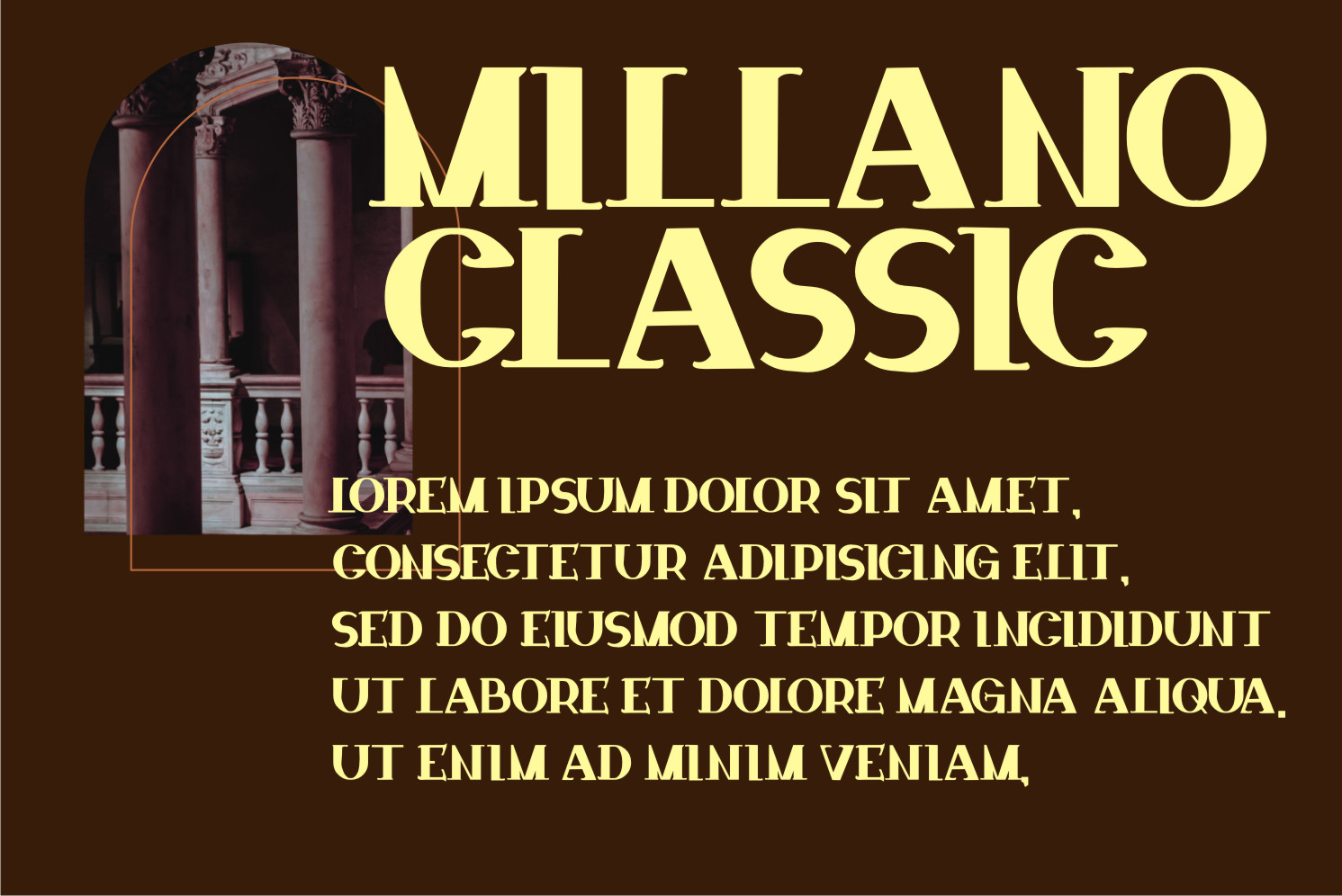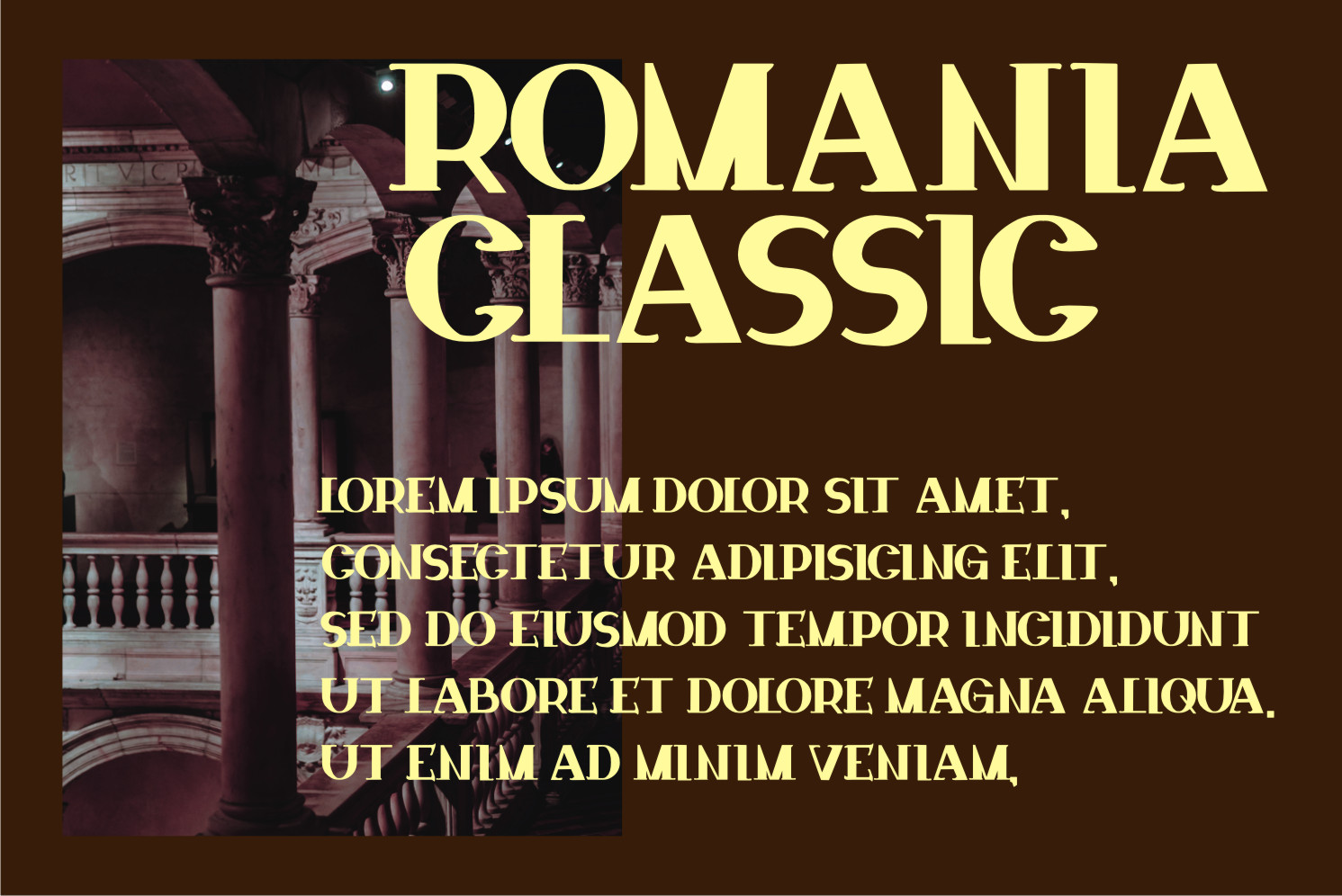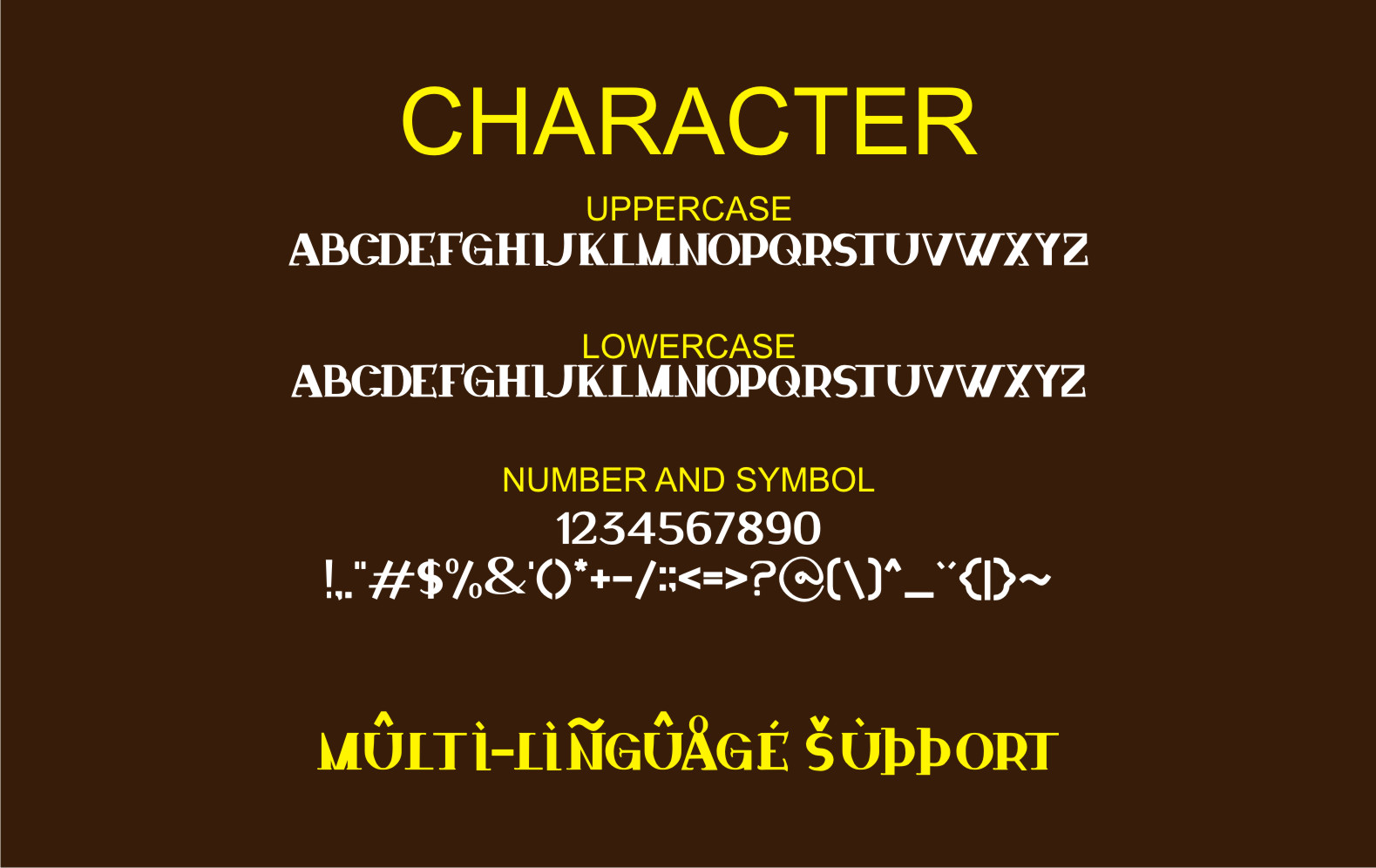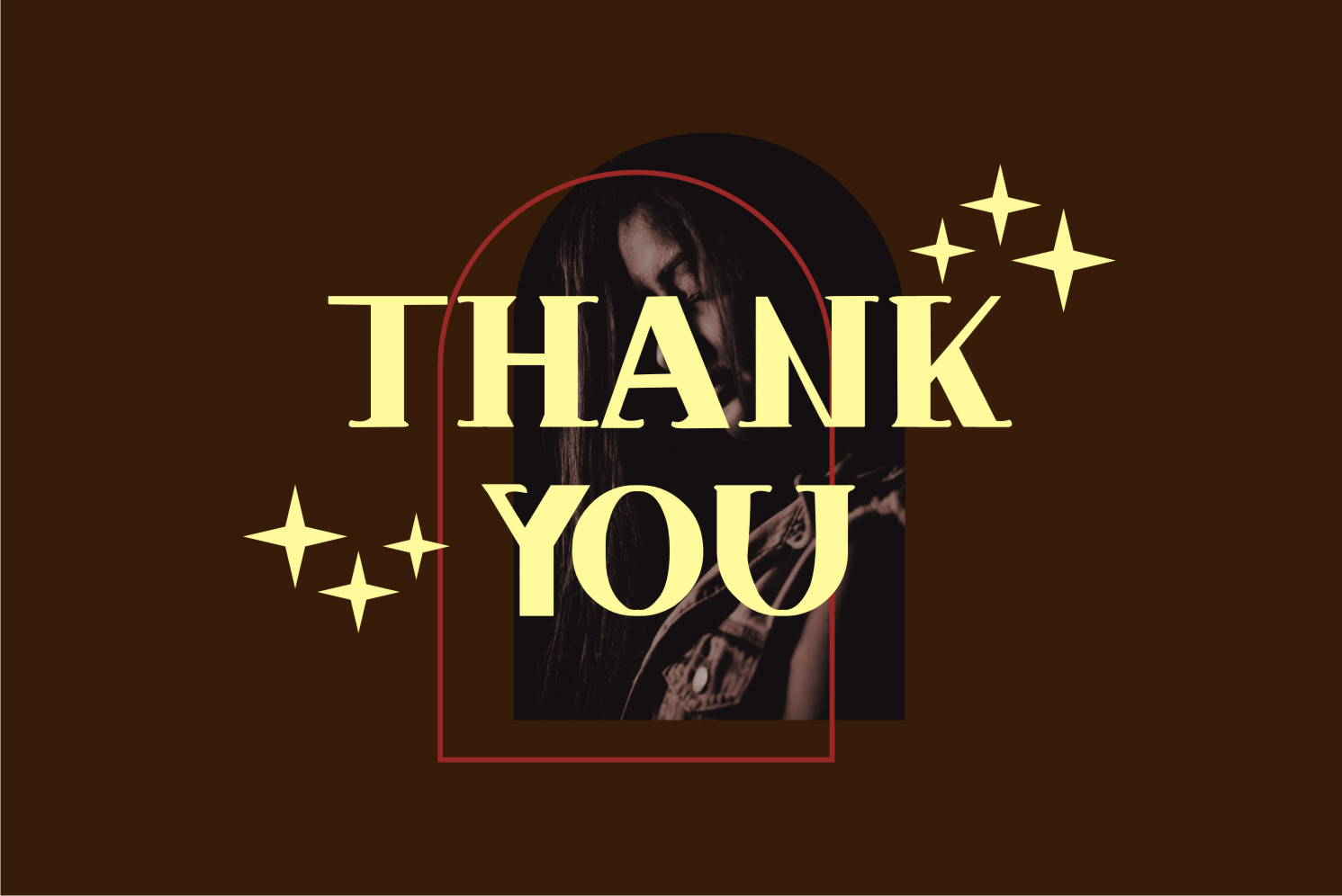
Classic Metadata Font
Classic Metadata Display Font
It’s a cool, bold and vintage styled serif font. It will look stunning on any food menu, poster, flyer or print. Use this font for your designs and explore its endless possibilities.